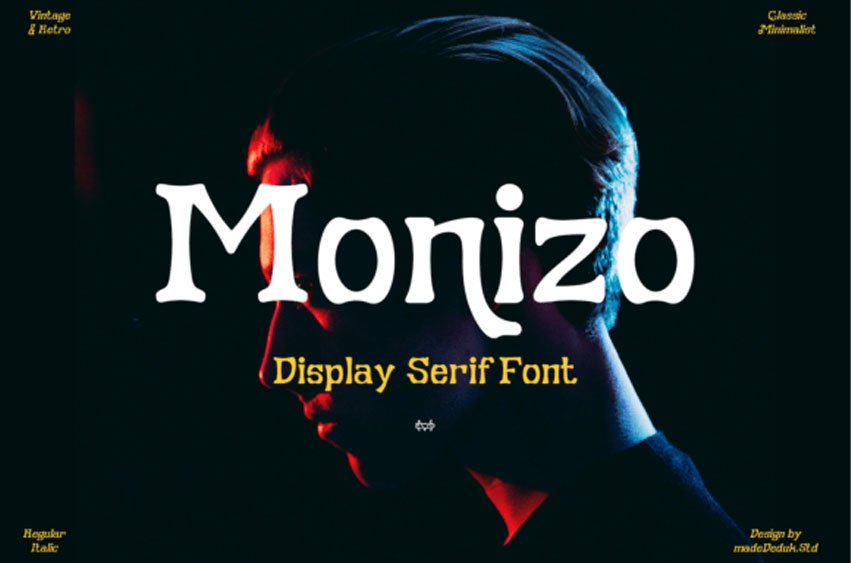
Monizo Font is a bold display serif font that captures the essence of vintage 80’s retro design while delivering a refined and modern edge. Its expressive letterforms feature strong serifs, unique curves, and dynamic proportions that create rhythm and balance, making text both stylish and comfortable to read.
With a single weight available in both regular and italic styles, Monizo offers versatility for titles, posters, logos, branding, packaging, and editorial layouts.
The font includes a wide selection of alternates and creative ligatures, giving designers the freedom to experiment and build distinctive compositions. Its legibility pairs seamlessly with its ornamental character, making it equally suited for bold headlines and artistic statements. Monizo’s combination of nostalgic charm and contemporary precision makes it a powerful tool for anyone looking to bring personality and impact to their projects.